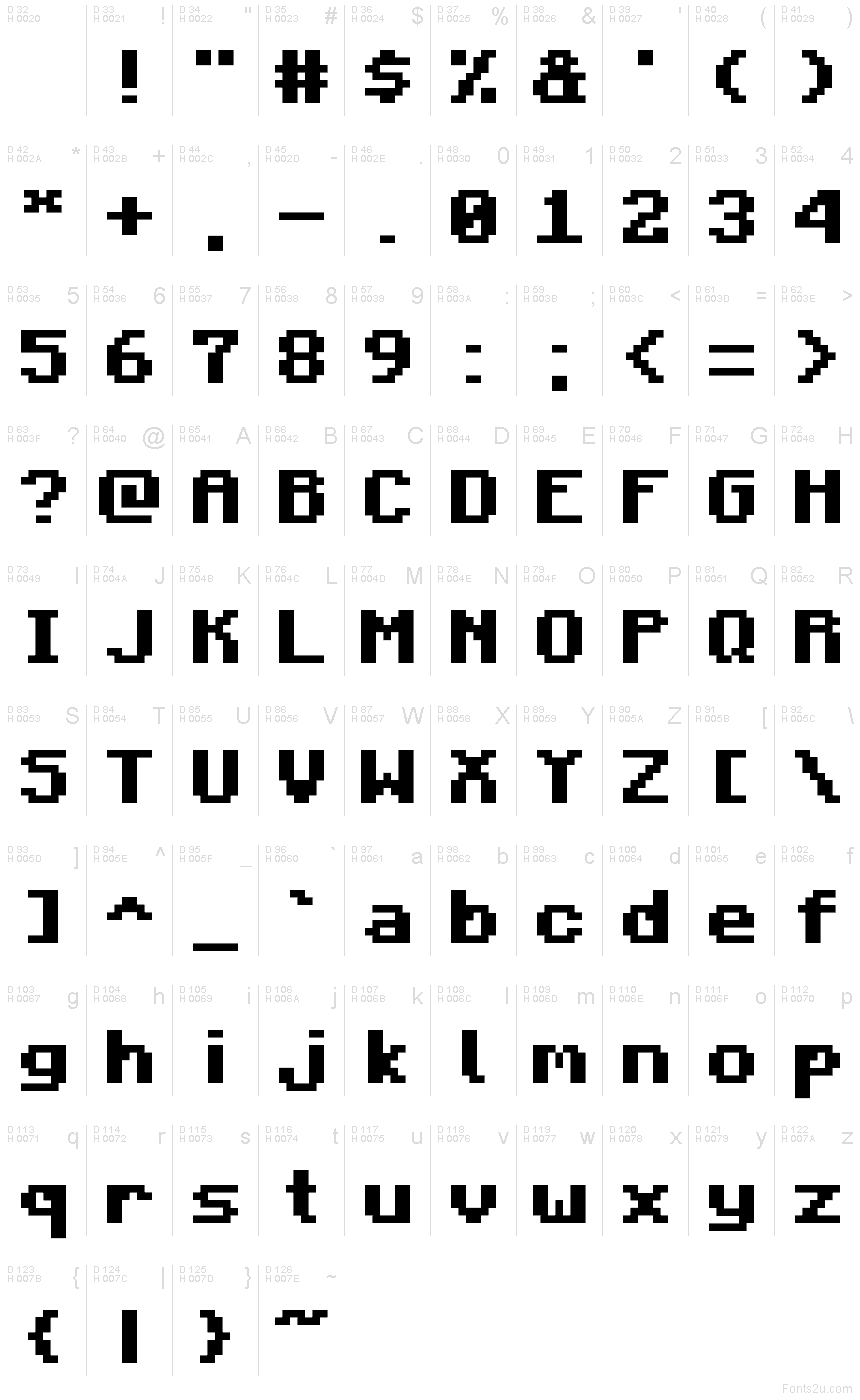
mac's Tweaked Minecraft Bold
Mac's Minecraft Bold Tweaked font by Macimas is a robust pixelated, expanded, and bold bitmap typeface designed along the same lines as the standard visual appearances used in video games. The geometric block letter look is absolutely distinguishable from an artistic design perspective where shapes do not really exist in a traditional manner due to pixelation.
❤️ **Main** - The Minecraft font with bold and italic styles.
?️ **Tweaked** - Modifications to the main package designed to enhance the readability of specific bold characters.
✨ **Extended** - A fun experiment that adds more characters to the main package.